Fonts For Project. Like for example think about coca cola’s curved font or ibm’s clear cut letters. Boldwest is a fun and spooky font style that manages to hit a wonderful balance between stylized and readable.
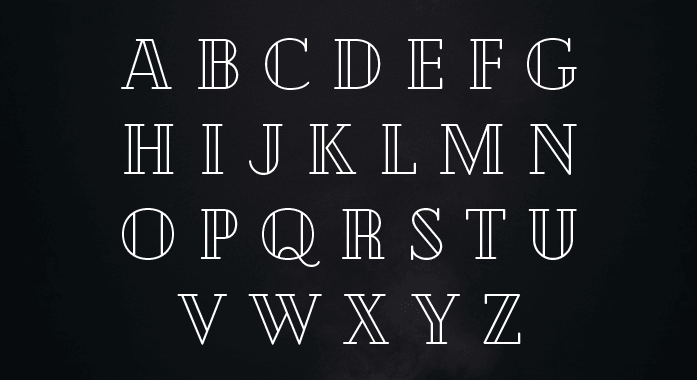
A font can say a lot about a creative project, but you definitely need to choose it wisely, especially when deciding on a script font. High quality design resources for free. The fonts you choose every time you lay out an email, an ebook, or an image for social media end up giving your marketing a polish that makes a big difference.
Like For Example Think About Coca Cola’s Curved Font Or Ibm’s Clear Cut Letters.
Explore fonts like ghang and fat wandals to capture the edgy, artistic vibe of graffiti in your next project. I hope you will find our popular script fonts list useful. Nonetheless, sans serif tends to be the best choice for tiny text presented on a screen.
Sans Serifs Are The Chameleons Of The Font World, Managing To Fit Effortlessly Into Both Modern And Classic Design Projects.
Here Are 20 Of The Top Music Video Fonts On Envato Elements To Make Your Music Project Pop… Indie Music Fonts Derived From The Word Independent And Less Chained To Commercial Success, Indie Music Is Known For Creating Interest And Pushing Boundaries.
Every font includes multilingual support. In 2014, some of typetype company’s font projects had been. It includes both uppercase and lowercase letters, numbering, and punctuation, as well as 71 stunning ligatures.
If You Pay Attention To The Details And Dedicate Enough Time To Select The Perfect Typeface For Your Design, You Can Use This Power To Your Advantage.
Each script font conveys a different feeling that allows designers to get the handwritten look they are going for while also matching the overall tone of the piece. Free downloads of legally licensed fonts that are perfect for your design projects. Handpicked free fonts to create a beautiful design.